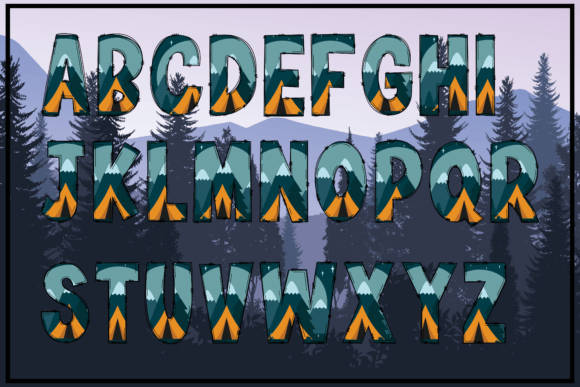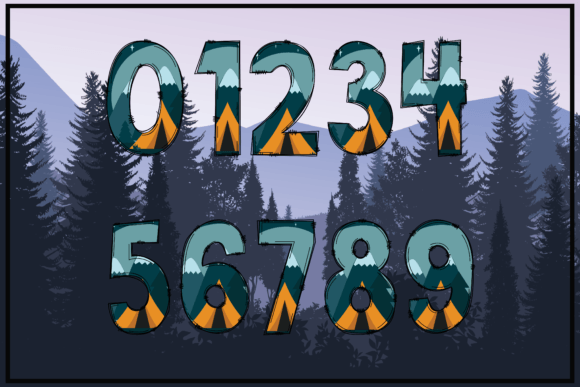
Discover the Fun in Design with Camp Font
You know that moment when a new font comes along and suddenly, your design ideas start to flow like never before? It’s like a spark has been lit, and you can’t wait to see where it takes you. For designers like you, that moment is about to become a reality with the introduction of Camp Font.
Camp Font is a unique, original, and fun color font that adds a touch of playfulness to any design. Whether you’re working on a children’s book, a social media campaign, or a brand identity, Camp Font is the perfect addition to bring your ideas to life. With its cute and authentic style, the only limit is your imagination – and that’s what makes it so valuable for designers.
By incorporating Camp Font into your designs, you’ll be able to tap into a world of creative possibilities and bring a smile to your audience’s faces. Get ready to unleash your inner designer and see what magic you can create with this amazing font!
Camp Font Key Features
- Unique Characteristics: Camp Font features a distinctive, modern design with a unique blend of geometric and organic elements, making it ideal for use in branding, advertising, and editorial design.
Camp Font Review
Overall, I was impressed by Camp Font, a typeface designed with the great outdoors in mind. Here’s my take on its strengths and weaknesses.
- Camp Font’s natural, handwritten feel is perfect for outdoor-themed designs.
- The font’s subtle imperfections and texture give it a unique, organic look.
- It’s incredibly legible, even in smaller text sizes.
- Camp Font supports a wide range of languages, making it a great choice for international designs.
- Camp Font may be too informal for more corporate or formal designs.
- The font’s bold weights can feel a bit clumsy at larger sizes.
- Lack of italic and oblique styles may limit its use in certain contexts.
Camp Font is a solid choice for outdoor-themed designs, but its limitations may make it less suitable for other types of projects. With a bit of careful selection and styling, however, Camp Font can add a unique touch to your designs.
Camp Font is ideal for use in creative projects, such as:
- Travel brochures and guides
- Outdoor and adventure-themed marketing materials
- Photography and art projects